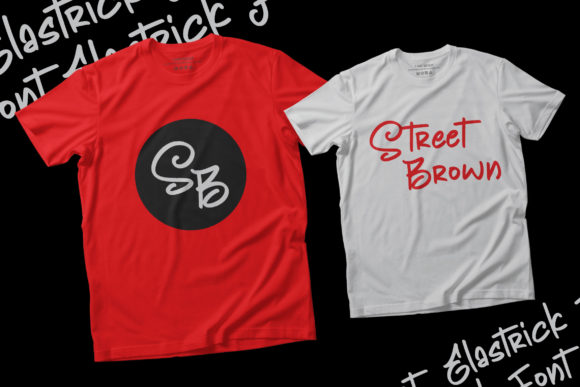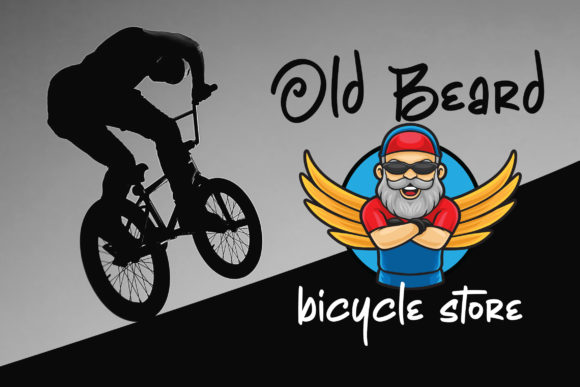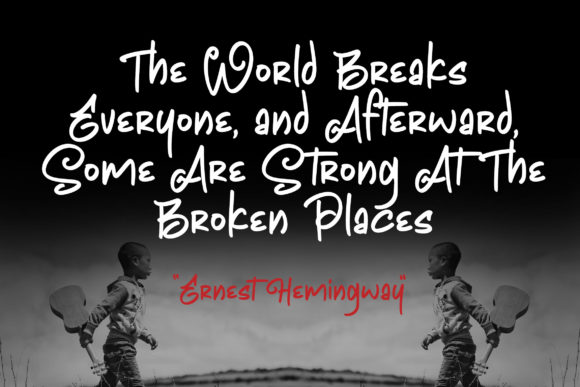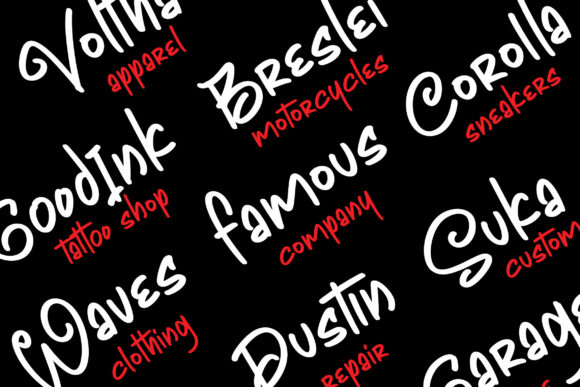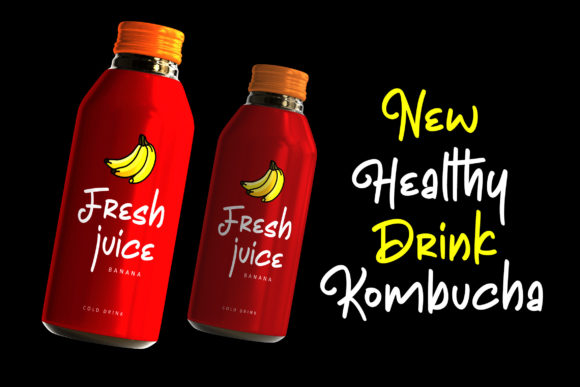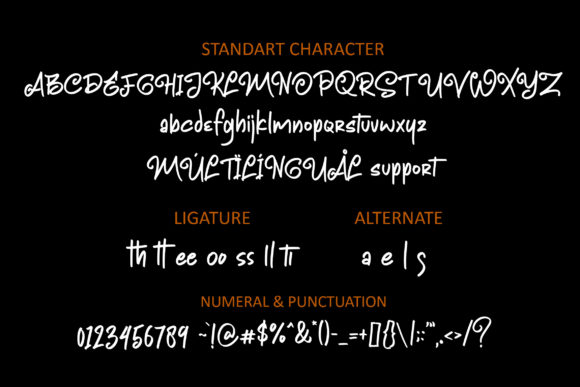
Introducing Elastrick Font: The Ultimate Urban Styled Display Font
Are you tired of using the same old fonts for your designs? Look no further! Elastrick Font is here to revolutionize your creative projects with its cool, casual, and urban style. This versatile display font is perfect for designers and crafters looking to add a touch of modernity to their work.
What is Elastrick Font?
Elastrick is a stylish and trendy display font that is designed to make a statement. Its unique and edgy design makes it ideal for creating eye-catching designs that stand out from the crowd. Whether you’re working on a logo, advertisement, or clothing design, Elastrick Font is the perfect choice.
Key Features of Elastrick Font
- Cool and Casual Style: Elastrick Font boasts a relaxed and urban style that is perfect for creating modern and trendy designs.
- Versatile: This font is suitable for a wide range of designs, including t-shirts, sportswear, logos, advertisements, clothing, and more.
- Easy to Read: Despite its edgy design, Elastrick Font is easy to read, making it perfect for designs that require a clear and concise message.
- High-Quality: Elastrick Font is a high-quality font that is designed to produce crisp and clear results, even at small sizes.
Use Cases for Elastrick Font
Elastrick Font is a versatile font that can be used in a variety of design projects. Here are some use cases to get you started:
- T-Shirt Designs: Create eye-catching t-shirt designs that stand out from the crowd with Elastrick Font.
- Sportswear: Add a touch of modernity to your sportswear designs with this stylish font.
- Logos: Create a unique and memorable logo for your brand with Elastrick Font.
- Advertisements: Use Elastrick Font to create attention-grabbing advertisements that drive results.
- Clothing: Add a touch of style to your clothing designs with this versatile font.
Why Choose Elastrick Font?
With so many fonts available, why choose Elastrick Font? Here are just a few reasons:
- Unique Style: Elastrick Font boasts a unique and stylish design that sets it apart from other fonts.
- High-Quality: Elastrick Font is a high-quality font that produces crisp and clear results.
Tips for Using Elastrick Font
Here are some tips for getting the most out of Elastrick Font:
- Experiment with Different Sizes: Elastrick Font looks great at a variety of sizes, so don’t be afraid to experiment.
- Pair with Other Fonts: Try pairing Elastrick Font with other fonts to create a unique and eye-catching design.
- Use in Combination with Images: Elastrick Font looks great in combination with images, so try using it to add text to your designs.
In conclusion, Elastrick Font is a versatile and stylish display font that is perfect for designers and crafters looking to add a touch of modernity to their work. With its cool, casual, and urban style, this font is sure to make a statement. Whether you’re working on a logo, advertisement, or clothing design, Elastrick Font is the perfect choice. So why wait? Download Elastrick Font today and start creating!